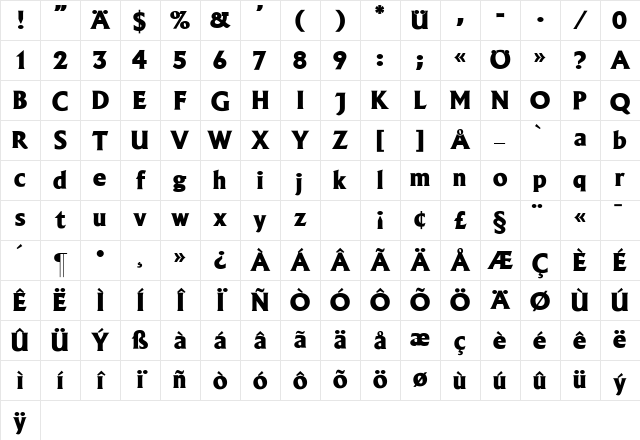
Complete AlbertusSH ExtraBold glyph index. Displaying only characters natively supported by AlbertusSH ExtraBold font.
AlbertusSH is a composed and adaptable typeface that performs quietly and consistently across a wide range of design contexts. Its bold stroke weight gives it real presence on the page.